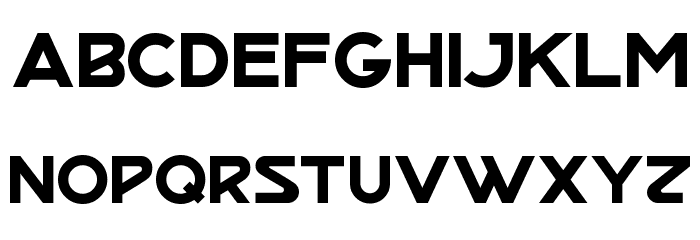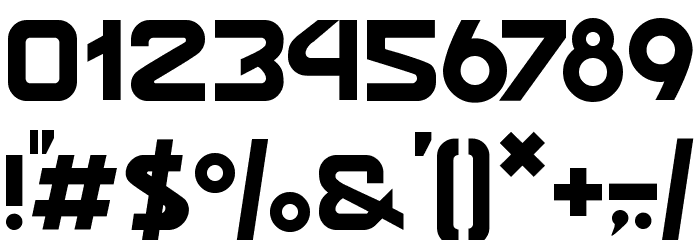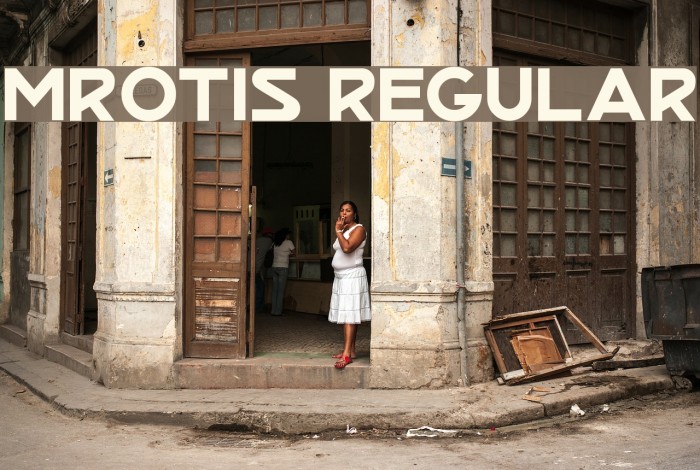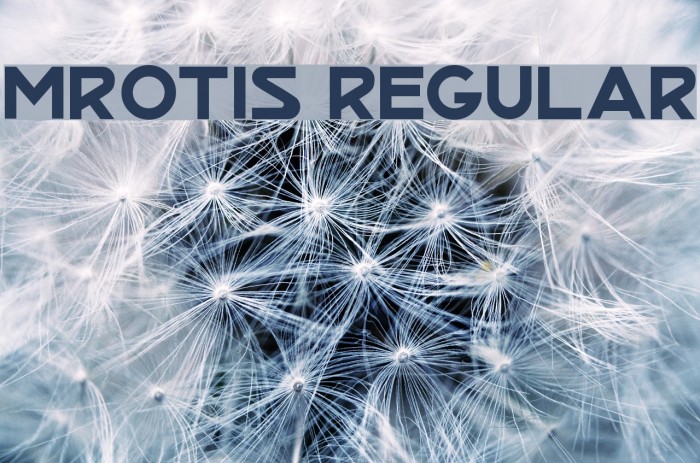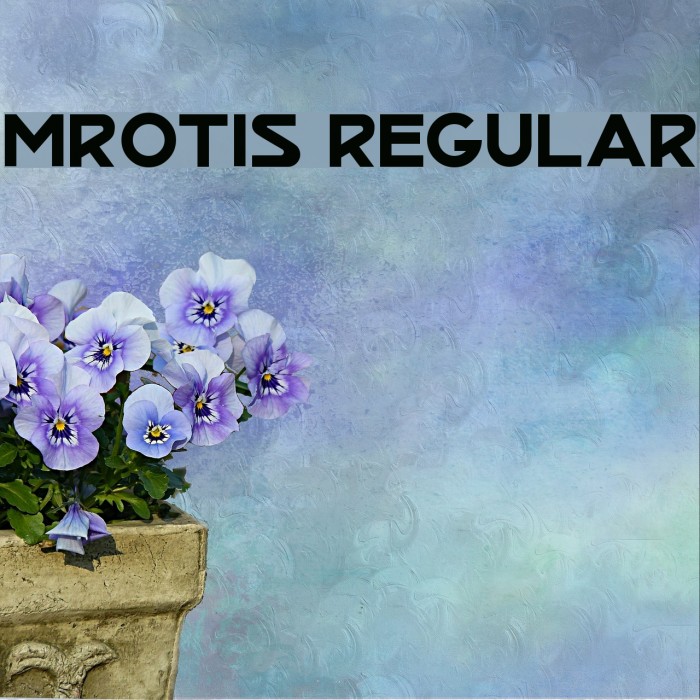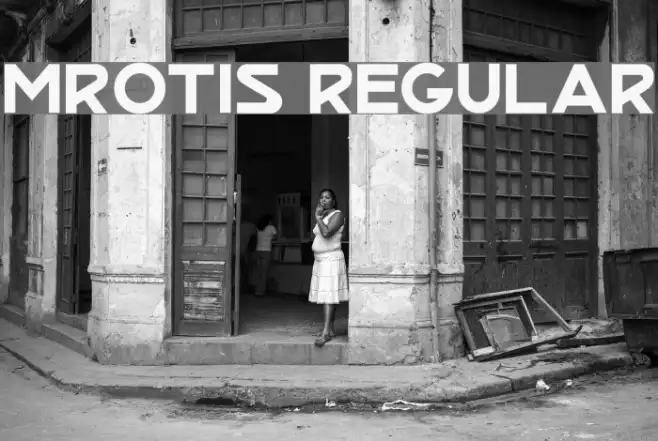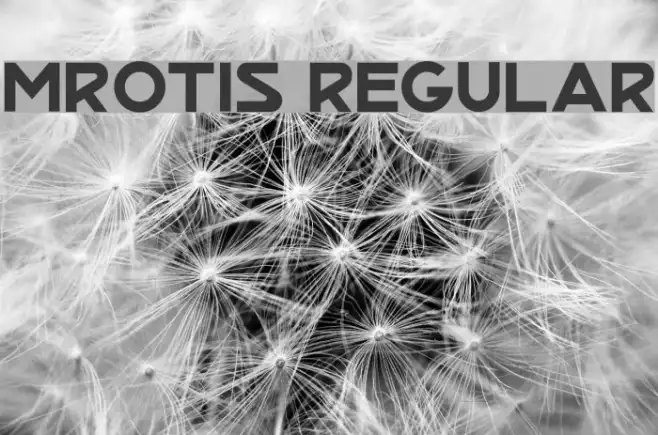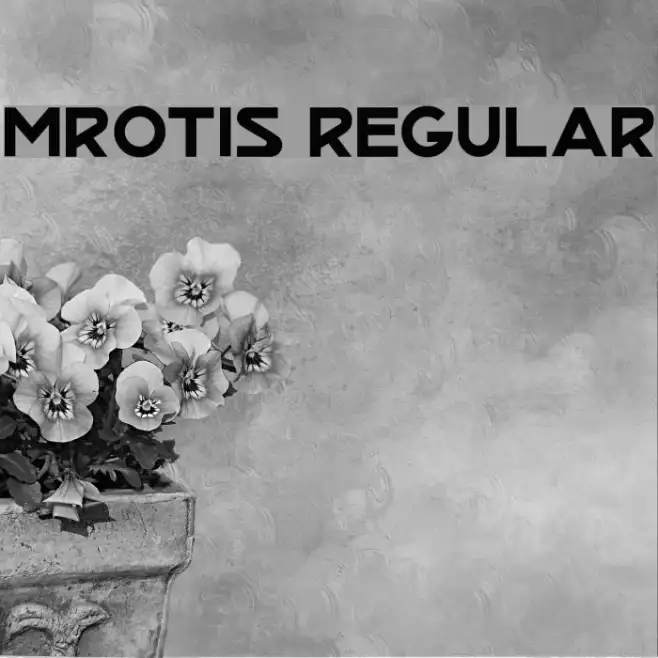
MrOtis Regular Font
This font features a bold and geometric design, characterized by its strong, angular lines and uniform stroke width. The uppercase letters are particularly striking, with a modern and industrial feel that is both assertive and clean. The numerals and special characters maintain this aesthetic, providing a cohesive look across all glyphs. The font's design is highly legible, making it suitable for various applications where clarity and impact are essential. Its boldness and geometric nature give it a contemporary edge, ideal for modern branding and design projects.
A bold, geometric font with strong, angular lines and a modern industrial feel.
- Proposed Projects: Ideal for branding, advertising, posters, and any design projects requiring a bold, modern aesthetic.